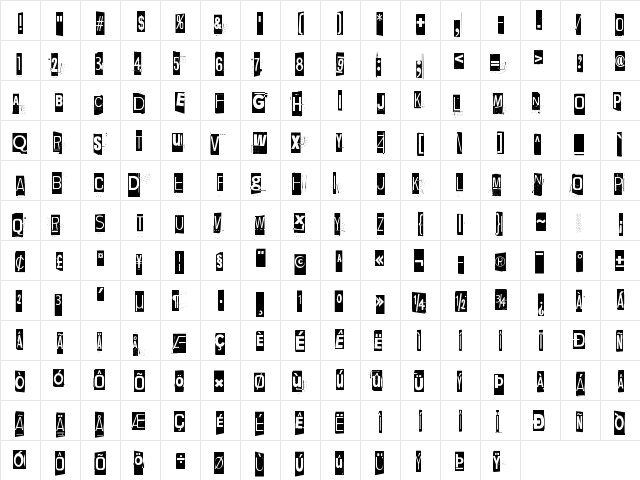
Lievidence Nega Regular
| Designer | junkohanhero |
Design Context for Lievidence Nega Typeface
Lievidence Nega is a composed and adaptable typeface that performs quietly and consistently across a wide range of design contexts.